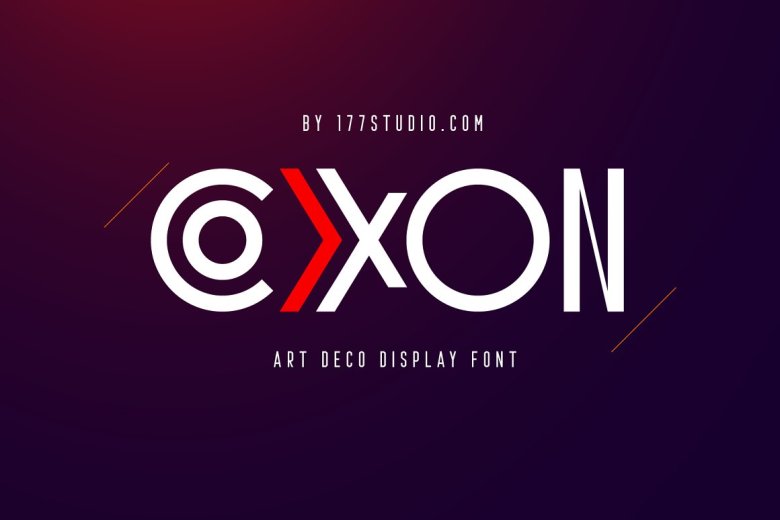
Coxxon Font
COXXON Font is an art deco inspired sans serif typeface that is both elegant and minimal at the same time. This chic font takes the decoration out of deco but keeps those vintage curves. A perfect mix of new and old.
It combines light and heavy stroke widths with simple geometric forms to create a stylish appearance reminiscent of the 1920’s design era. This versatile font can be used for word-mark logos, mastheads, pull quotes & monograms. Plus 8 bonus feminine logos thrown in!